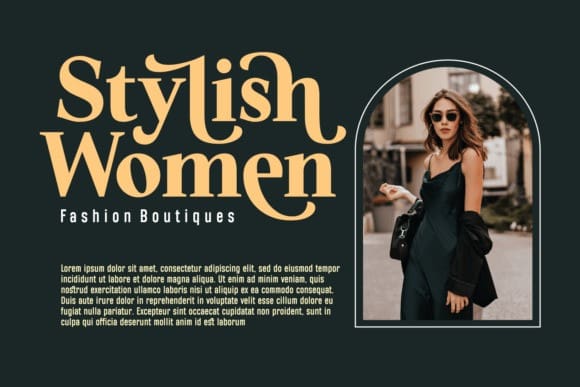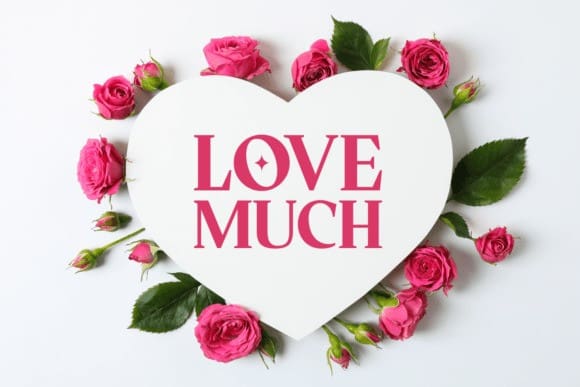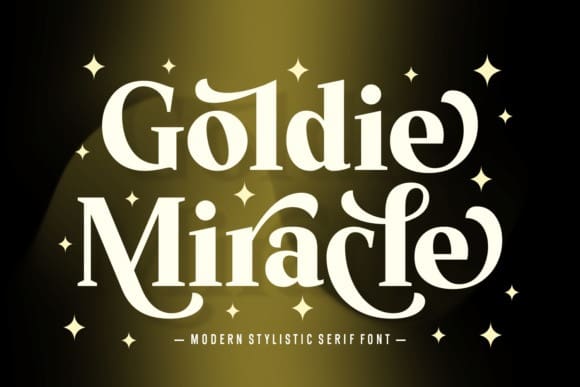
Goldie Miracle Font
Goldie Miracle Font is a contemporary font that effortlessly blends modern style with a touch of elegance. What makes it stand out are the graceful swashes that add a subtle and sophisticated flair to your text. Perfect for creating a refined and stylish impression, Goldie Miracle is ideal for various design projects. Whether you’re working on invitations, branding, or any creative endeavor, this font brings a touch of modern magic with its sleek design and elegant swashes.